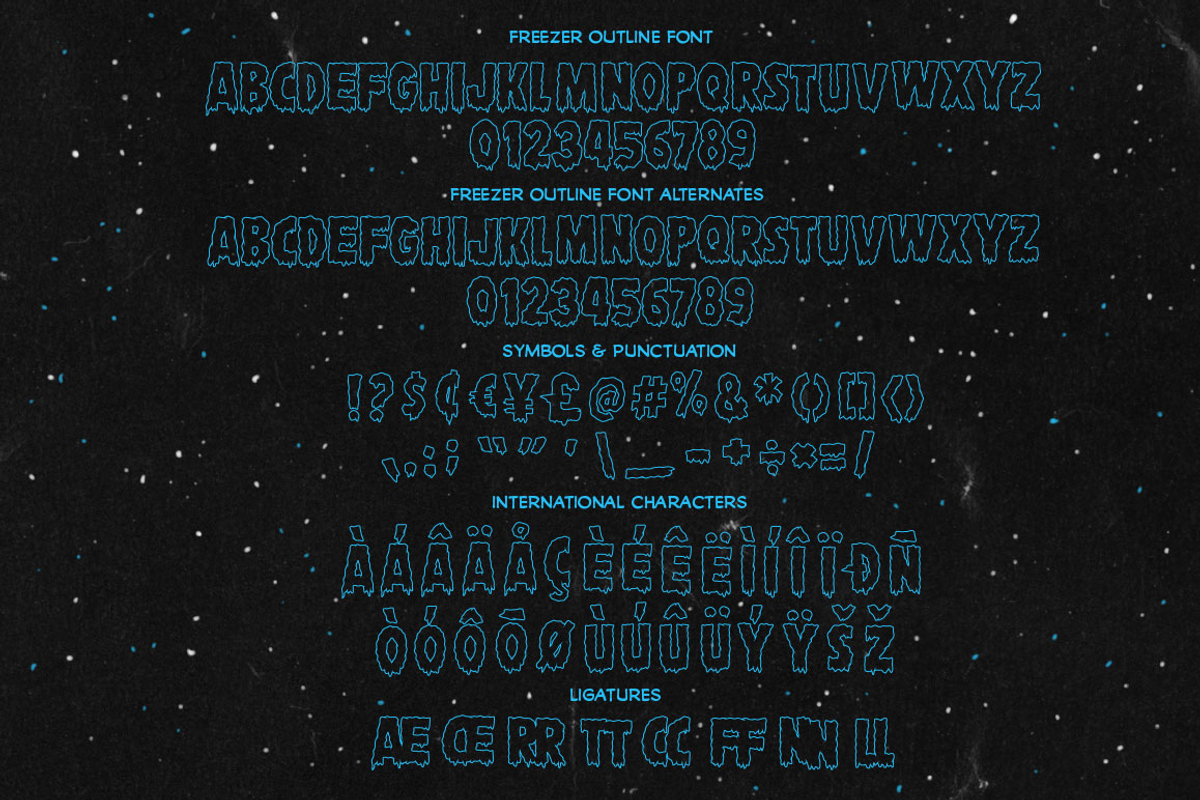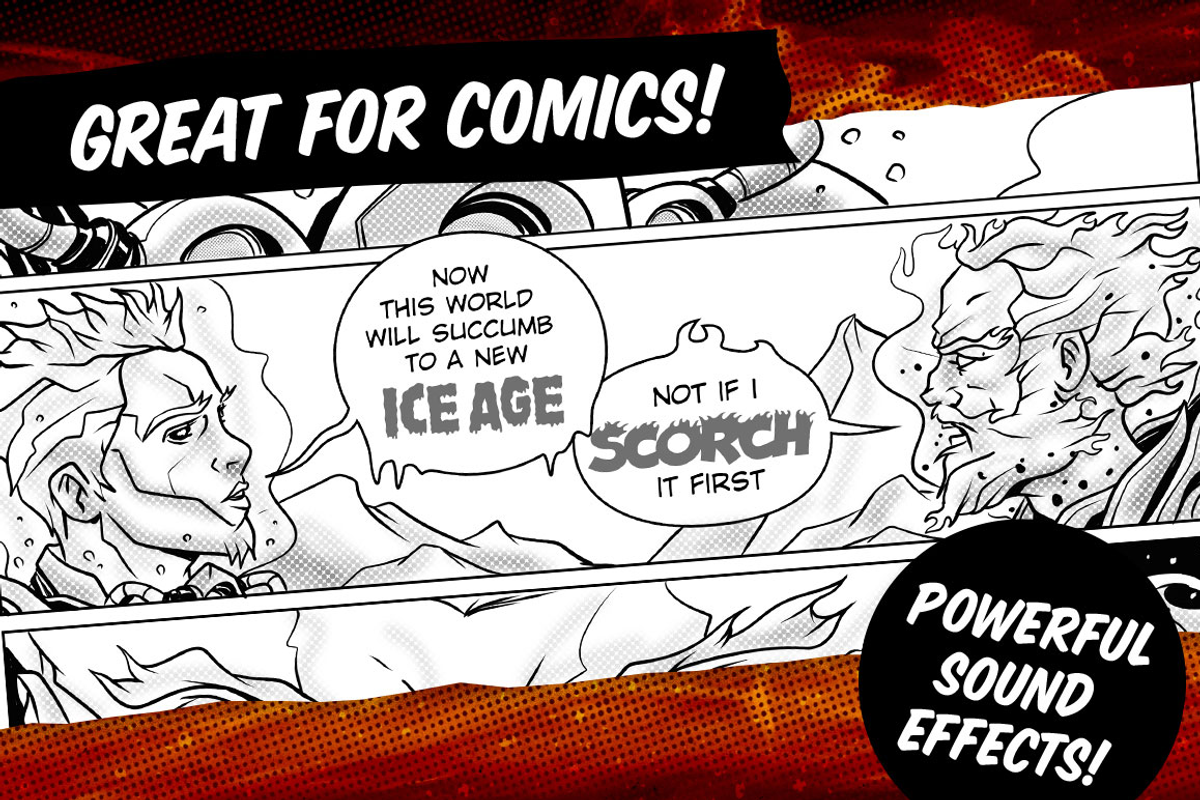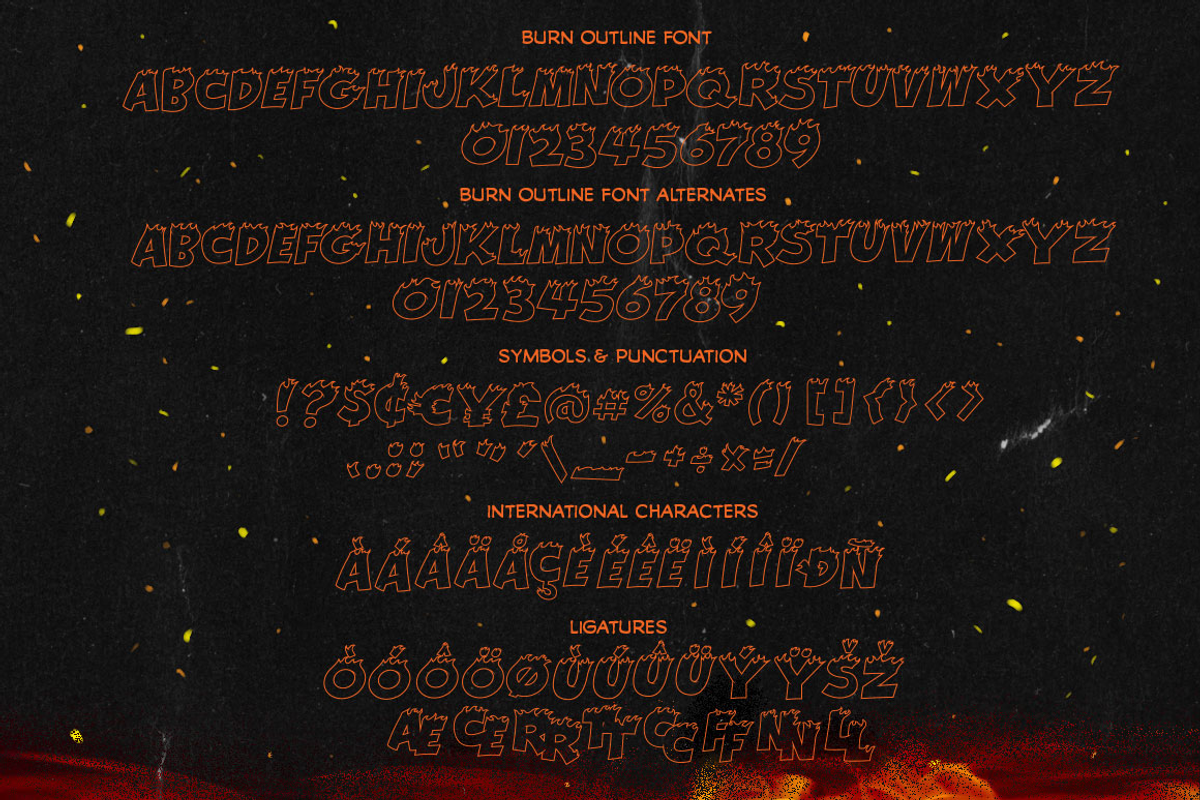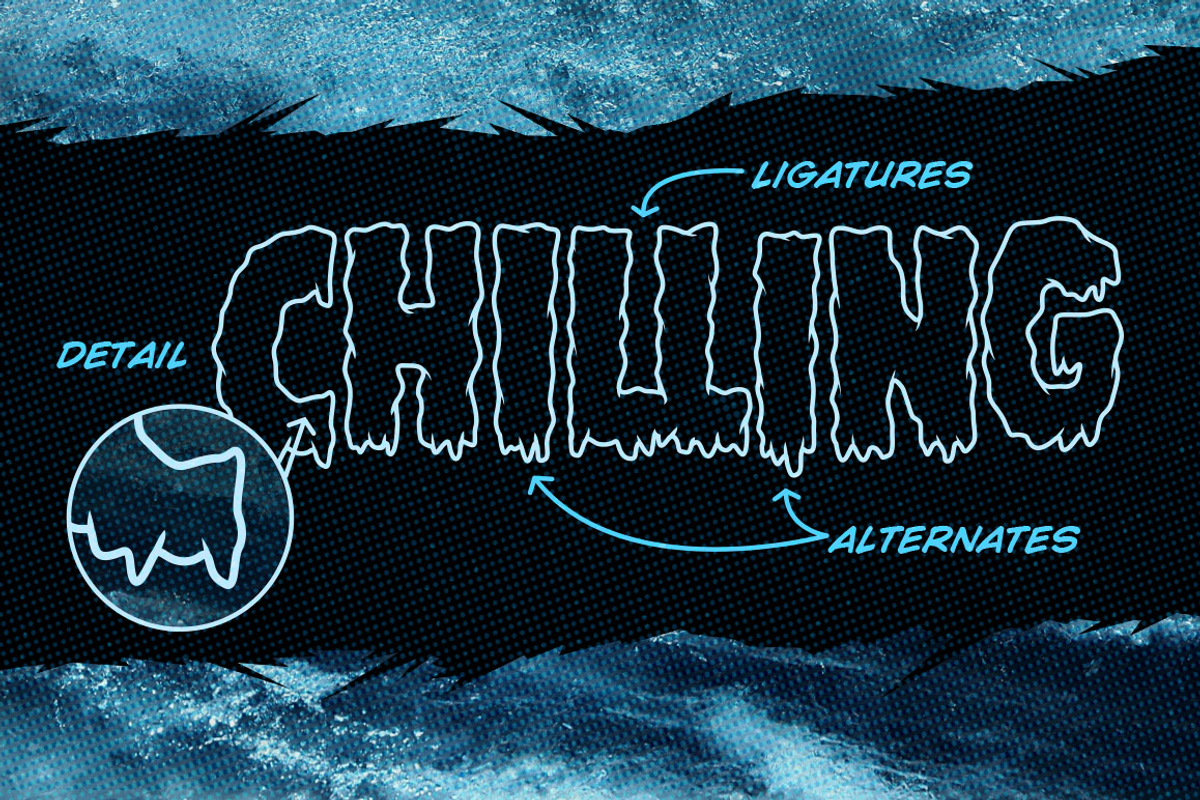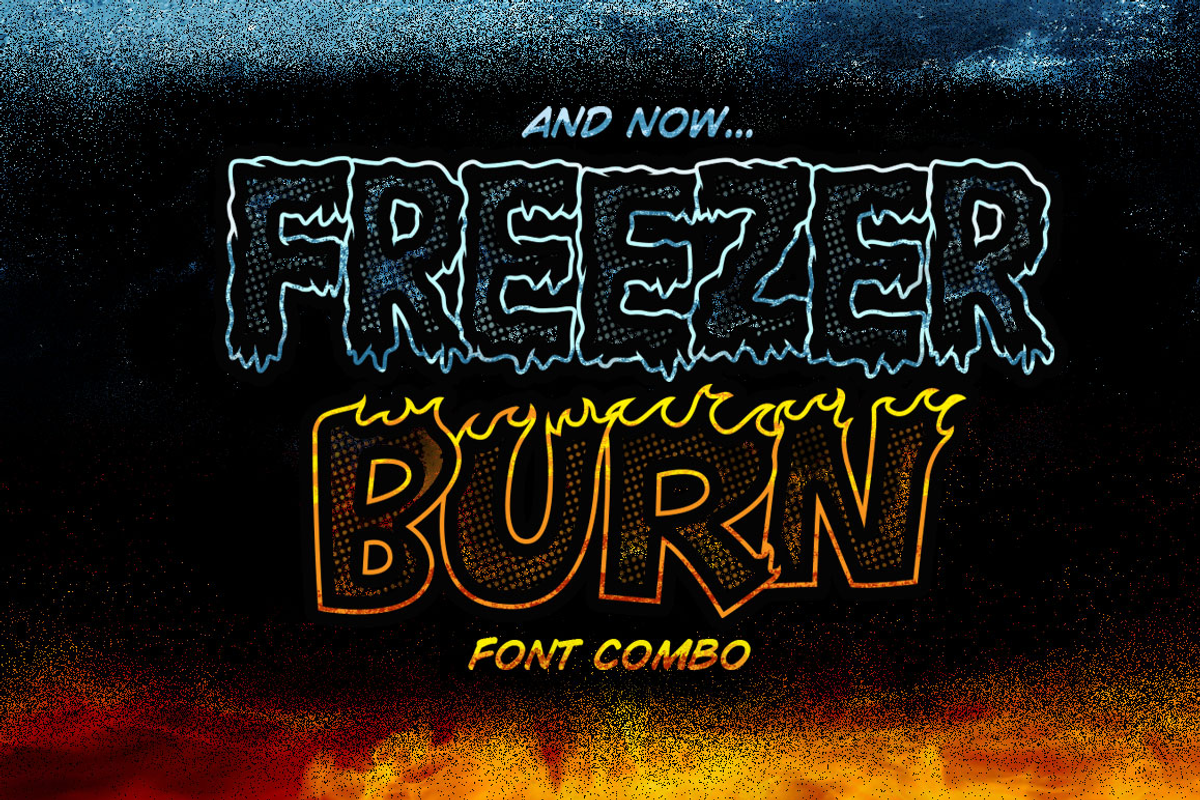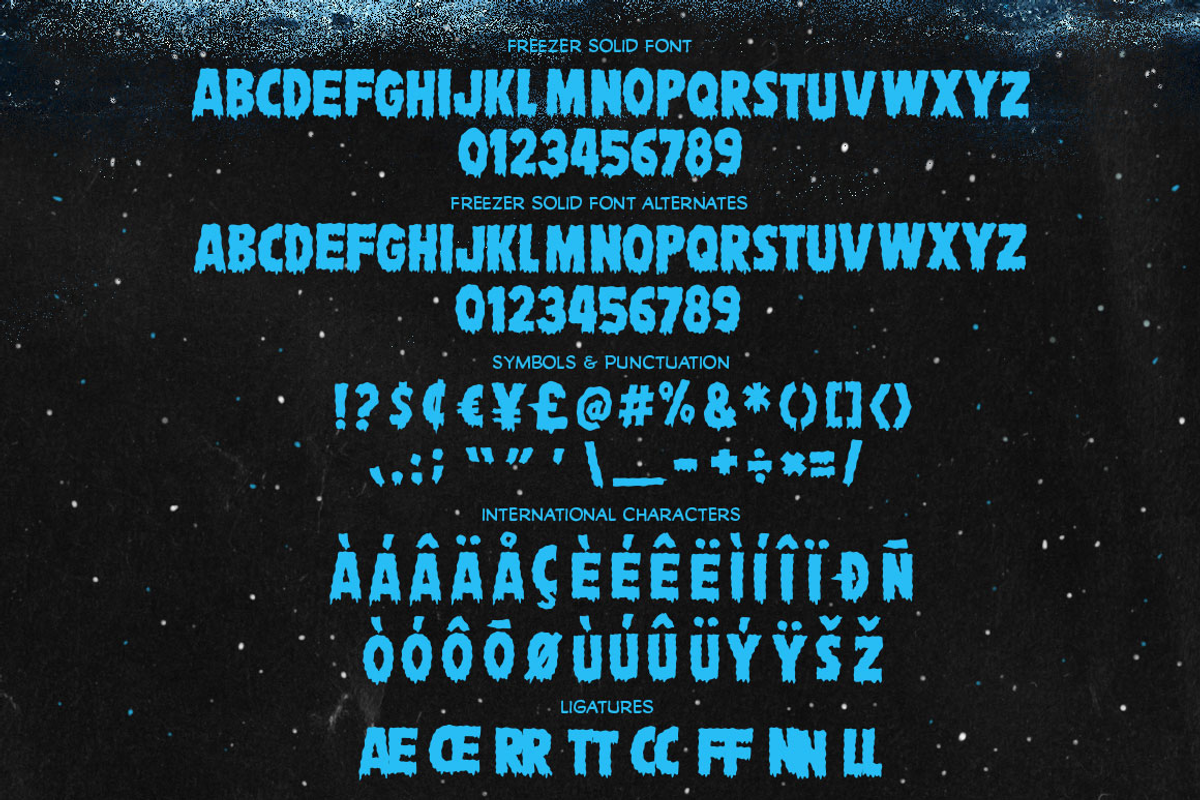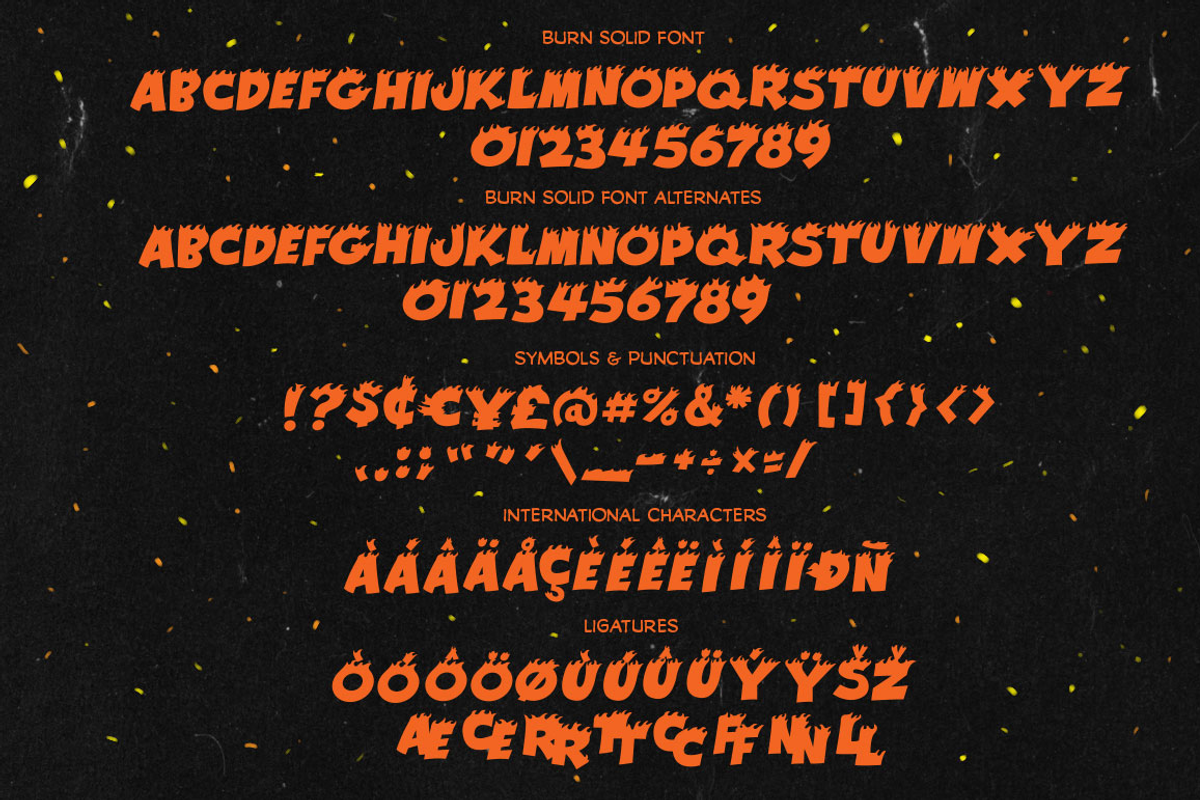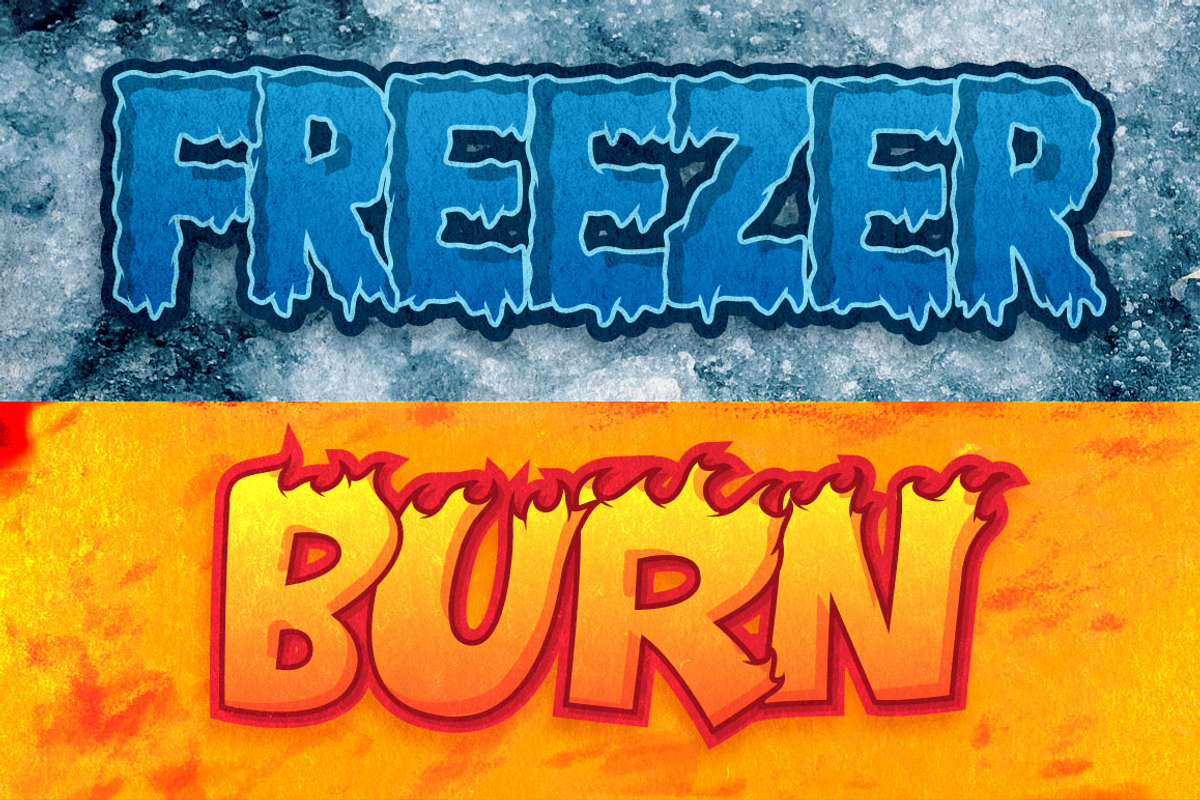
Freezer Burn Font Combo
From one extreme to the next! Whether you want to bring the heat or your looking to chill the Freezer Burn Font Combo fit's the bill!
Straight off the pages of your favorite classic comic book stories comes the dynamic duo of comic sound effects fonts. Freezer Burn hits you with a hot and cold one, two punch and gives your comics, posters, flyers, illustrations, etc. the dynamic effect you're looking for.
Take your next project the extreme!